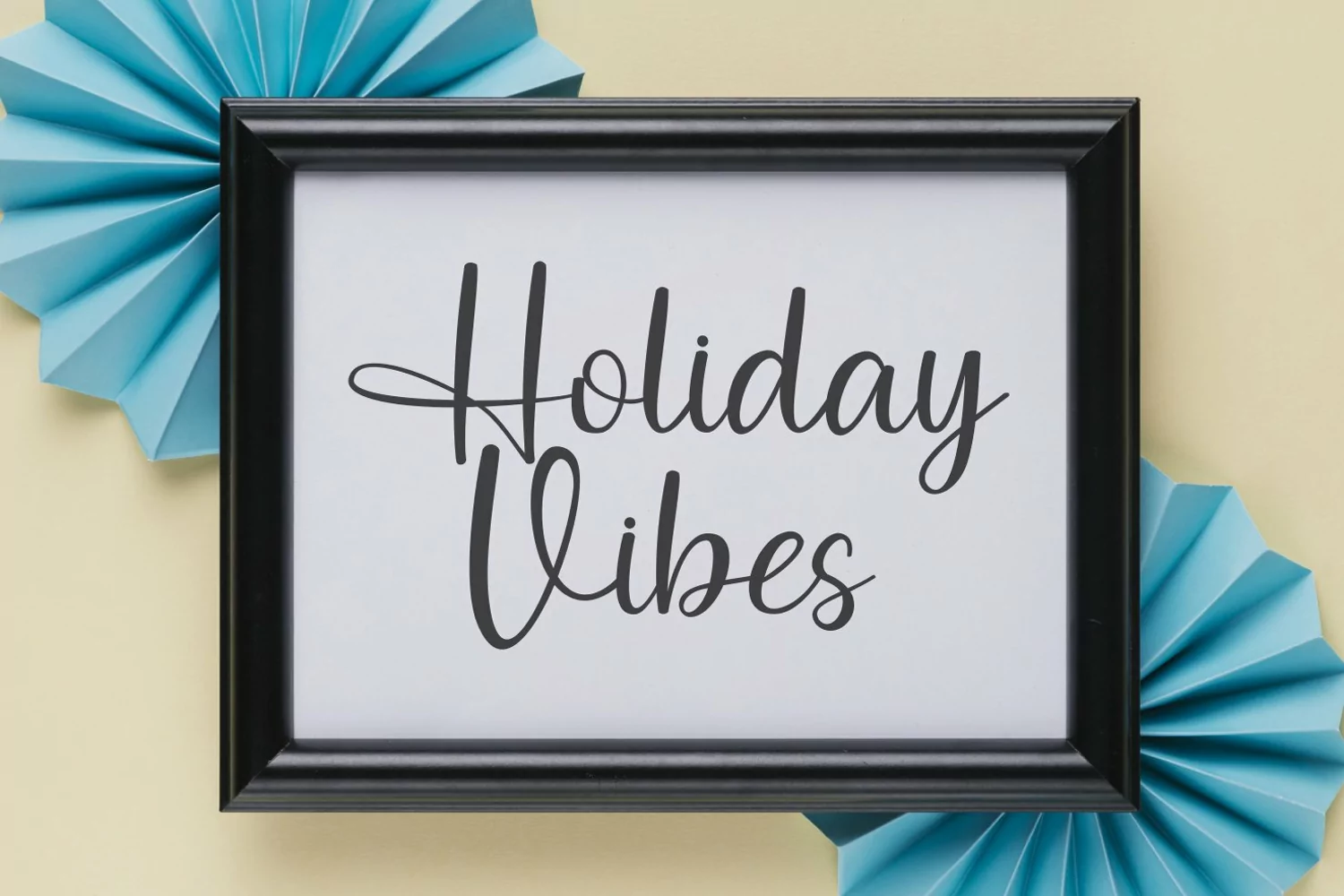
Bright Tropical is a cute and simple handwritten font that you can use for quotes, poster, logos, branding and much more! Its authentic look will add a realistic feel to your designs. This font is PUA-encoded, which means you can access all of the glyphs and swashes with ease!